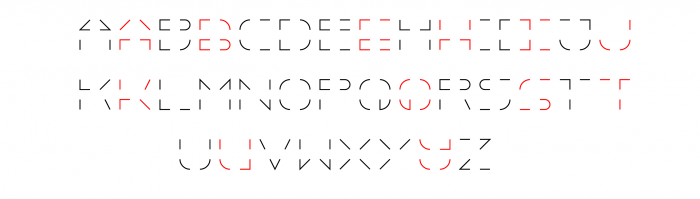
@MadSheep3: Да уж, идеален :) Как по мне, так Д, Ж, Ф, Ц, Ш, Щ, Ъ, Ы, и Ю сами по себе должны быть шире остальных букв, а Ш, Щ и Ъ, Ы, Ь имеют одинаковые элементы, и если они различаются, то всегда вспотыкаешься, пытаясть понять, что за буква. Если читаете по-русски, то советую проитать «Книгу про буквы от Аа до Яя» Ю. Гордона и эту статью, например. А вообще, латиницаи общая идея очень даже ничего.
It looks great at low magnification. I wish the curves would be smooth. The (Latin ) text is easy to read. Please, note the font name "Pollux" is already taken. See the link: http://www.fontyukle.net/en/POLLUX.ttf I haven't tested the Cyrillic set. 10/10
Very good! But I see some inconsistencies, look for example at your B,E,F etc, and compare them with H.
Now, B,E,F follow the same logic, while H uses different logic by having two horizontal lines, and as a result, it may look like X. The letter T also breaks the rule by having two vertical lines, but it's acceptable considering the limitations of your logic.
Below is a suggestion if you want all glyphs to match. Also, even if this an All Caps font, you can still use lowercase to add alternatives, like in the sample below they are red:
An unusual stencil design, it looks "light and airy" and is very legible.
Added support for "Cyrillic (Only Russian)" to "Pollux".
The whole font looks very easy to read.
Monospaced Cyrillic almost always looks very bad. It is the fault of the Cyrillic alphabet, not yours.
Ну я даже не знаю, как по мне он идеален.
@MadSheep3: Да уж, идеален :) Как по мне, так Д, Ж, Ф, Ц, Ш, Щ, Ъ, Ы, и Ю сами по себе должны быть шире остальных букв, а Ш, Щ и Ъ, Ы, Ь имеют одинаковые элементы, и если они различаются, то всегда вспотыкаешься, пытаясть понять, что за буква. Если читаете по-русски, то советую проитать «Книгу про буквы от Аа до Яя» Ю. Гордона и эту статью, например. А вообще, латиницаи общая идея очень даже ничего.
It looks great at low magnification. I wish the curves would be smooth. The (Latin ) text is easy to read. Please, note the font name "Pollux" is already taken. See the link: http://www.fontyukle.net/en/POLLUX.ttf I haven't tested the Cyrillic set. 10/10
Very good! But I see some inconsistencies, look for example at your B,E,F etc, and compare them with H.
Now, B,E,F follow the same logic, while H uses different logic by having two horizontal lines, and as a result, it may look like X. The letter T also breaks the rule by having two vertical lines, but it's acceptable considering the limitations of your logic.
Below is a suggestion if you want all glyphs to match. Also, even if this an All Caps font, you can still use lowercase to add alternatives, like in the sample below they are red: